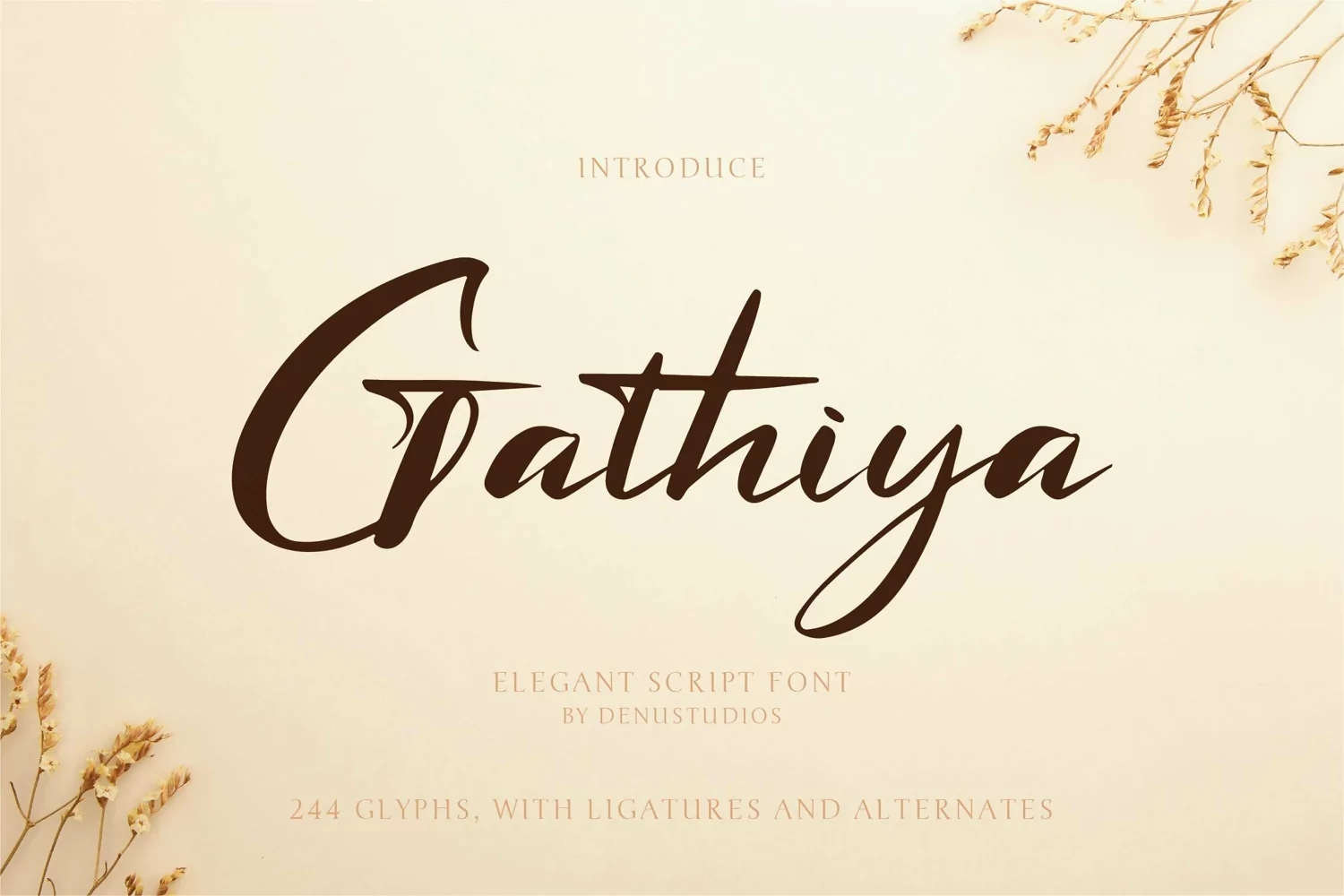
Proudly present Gathiya Handwritten Script, created by Denustudios, A Handwriting Script and classic typeface that has own unique style & modern look. This typeface is perfect for an elegant & luxury logo, book or movie title design, fashion brand, magazine, clothes, lettering, quotes, and so much more.
Uppercase and Lowercase
Numerals
Punctuations (OpenType Standard)
Accents (Multilingual Characters)
Ligatures and Alternative Style Stylistic Set